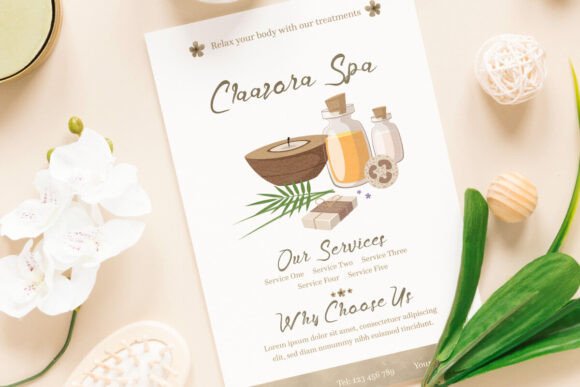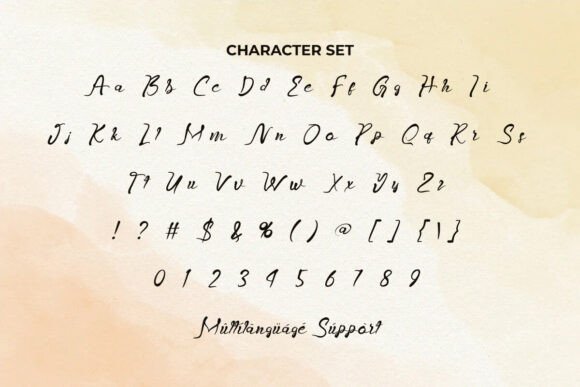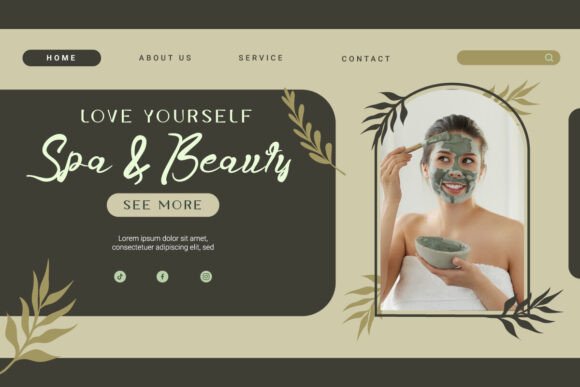
Introduction to Novaleigh Font
Novaleigh Font is a beautiful font duo with stylish sans serif display and lovely calligraphy script font.
Both fonts can make your design look both casual and modern, but still catch the eye of everyone who looks at it Try this font on a variety of designs, such as brand image, greeting card, invitation, label or product packaging, menu, poster, quote, signage, website, and more.